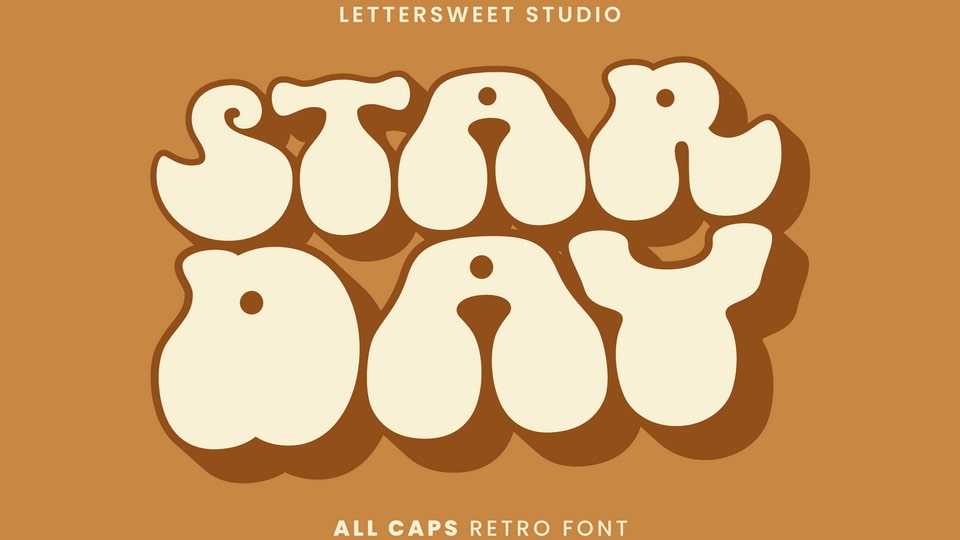
Download Starday font, a display typeface that feels playfully nostalgic and delivers an incredible vintage retro aesthetic. Starday font has the potential to bring each of your creative ideas to the highest level!